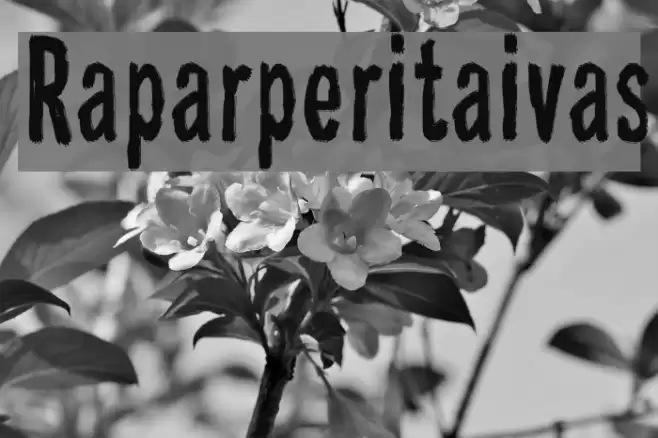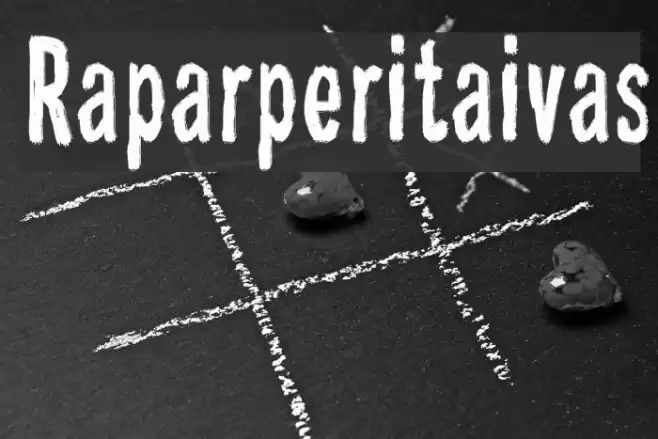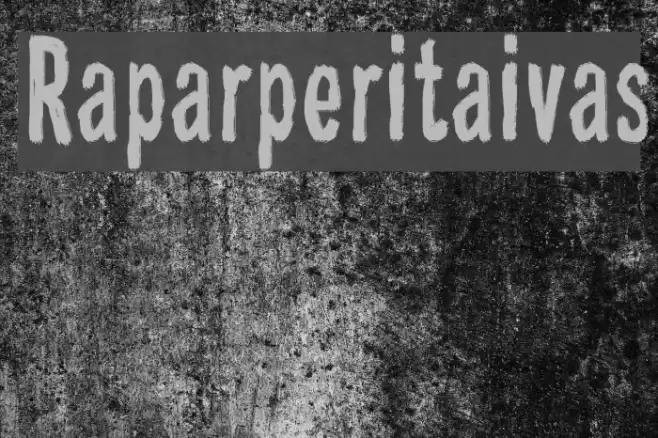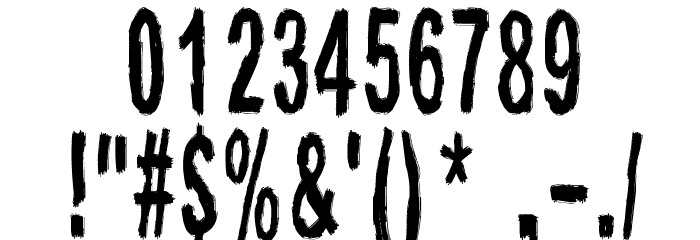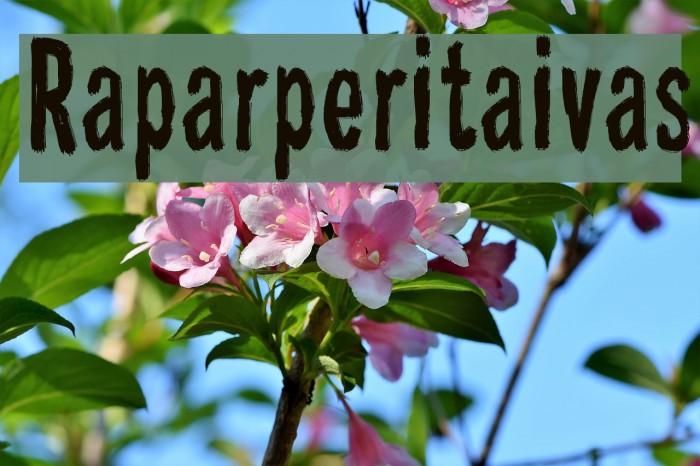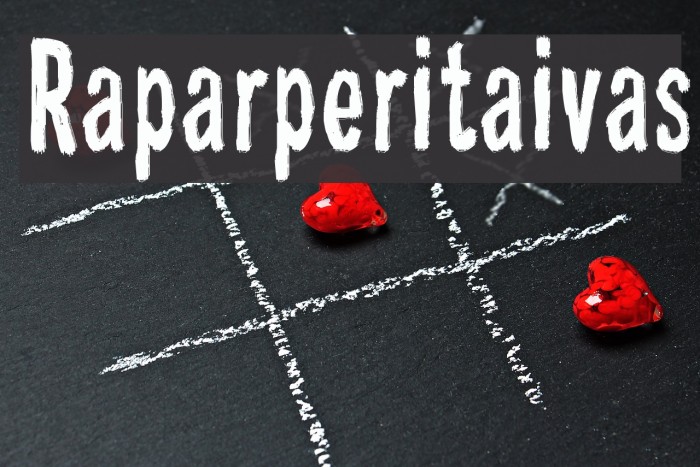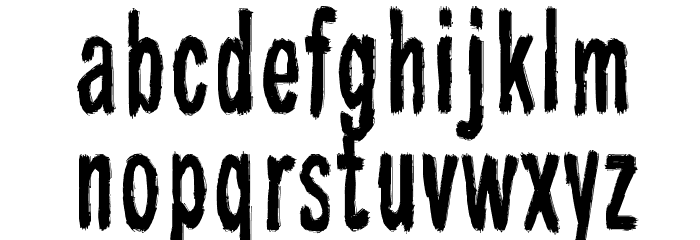
Raparperitaivas Font
Raparperitaivas Description
This font features a bold and expressive style with a hand-painted appearance. The characters are slightly irregular, giving it a unique and artistic feel. The strokes are thick and uneven, creating a textured look that adds depth and personality. The uppercase letters are tall and narrow, while the lowercase letters maintain a consistent height, contributing to a cohesive yet dynamic visual impact. The numbers and special characters follow the same stylistic approach, ensuring uniformity across all elements. This font is ideal for projects that require a bold statement and a touch of creativity.
A bold, hand-painted style font with textured, expressive strokes from Distorted Eroded fonts.
- Proposed Projects: Ideal for posters, album covers, artistic branding, and creative advertising.
- Overall Style: Artistic, Expressive